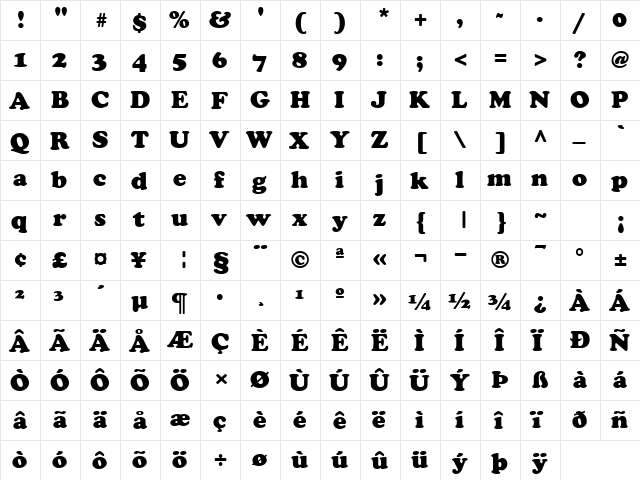
PT Cozy Normal
Design Context for PT Cozy Typeface
PT Cozy offers clean, dependable letterforms without strong stylistic allegiance, making it a practical choice for designers who need flexibility.
Pro Tip: Pair PT Cozy with a font of contrasting weight or personality to build a more expressive typographic hierarchy.